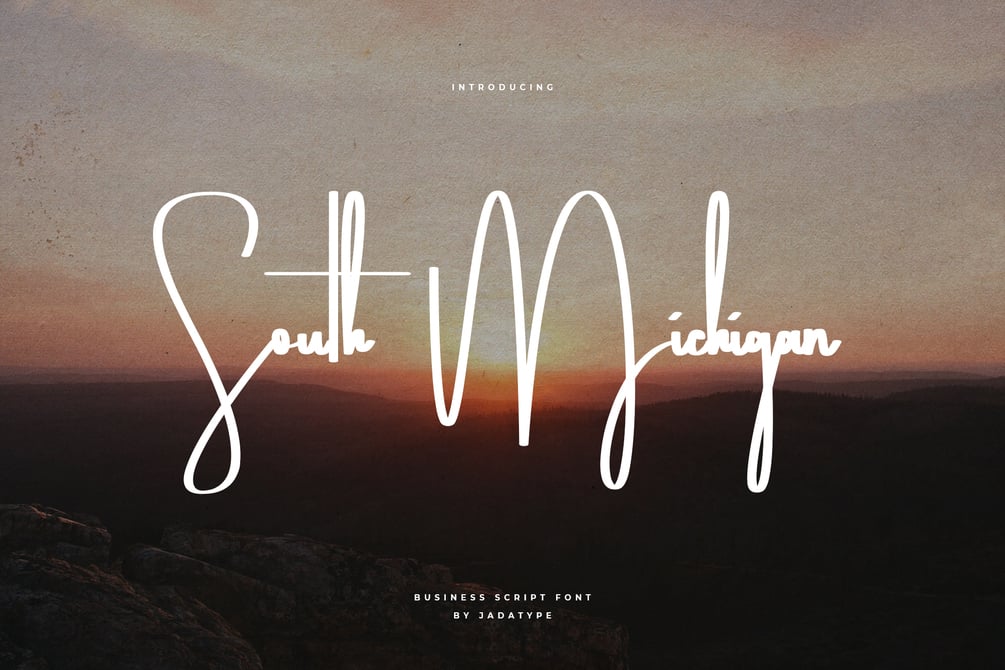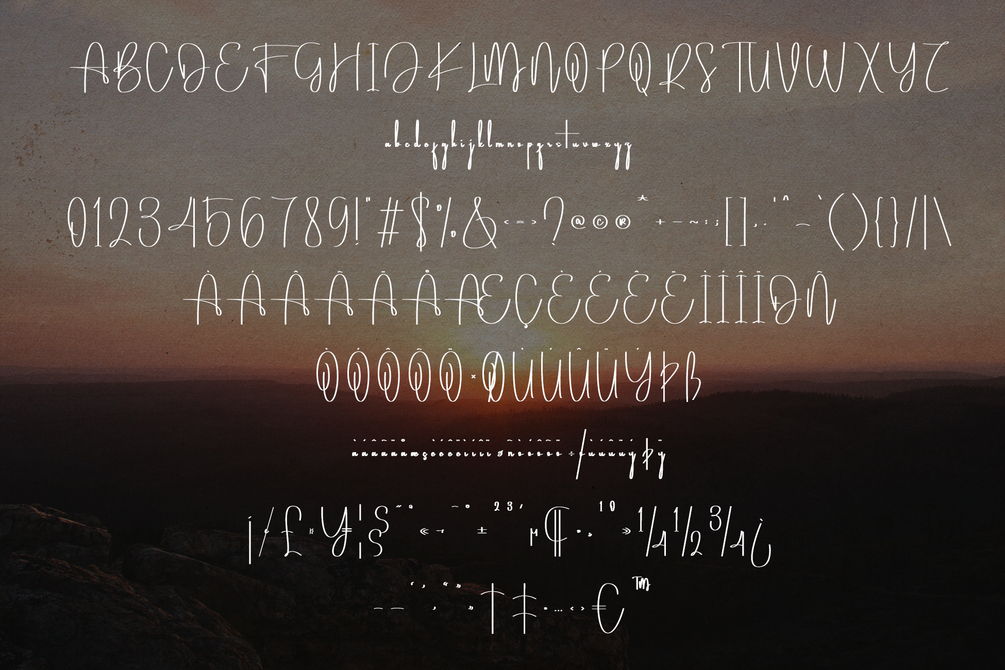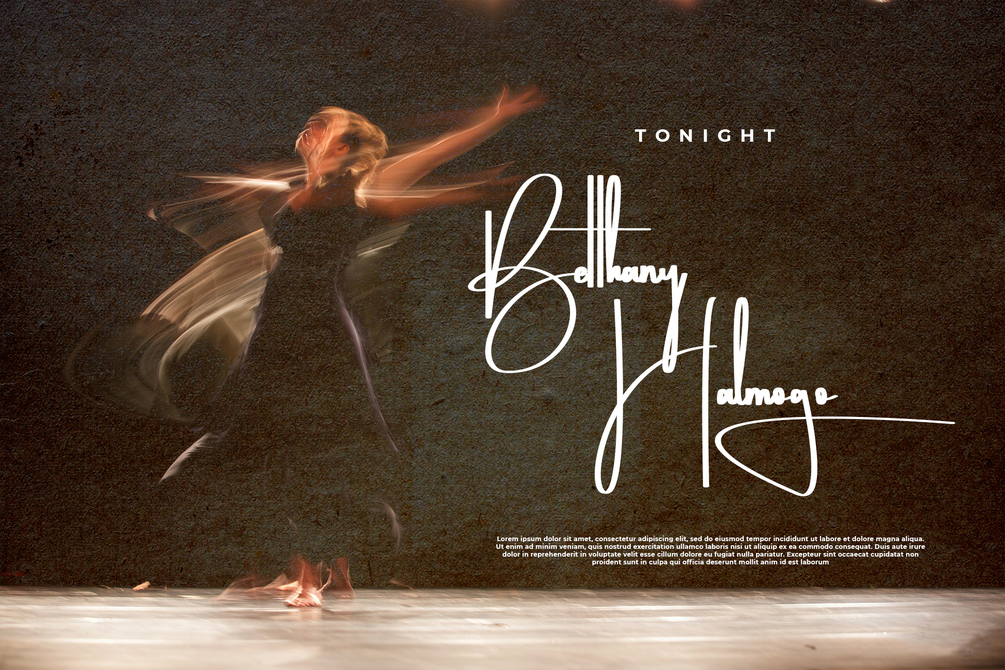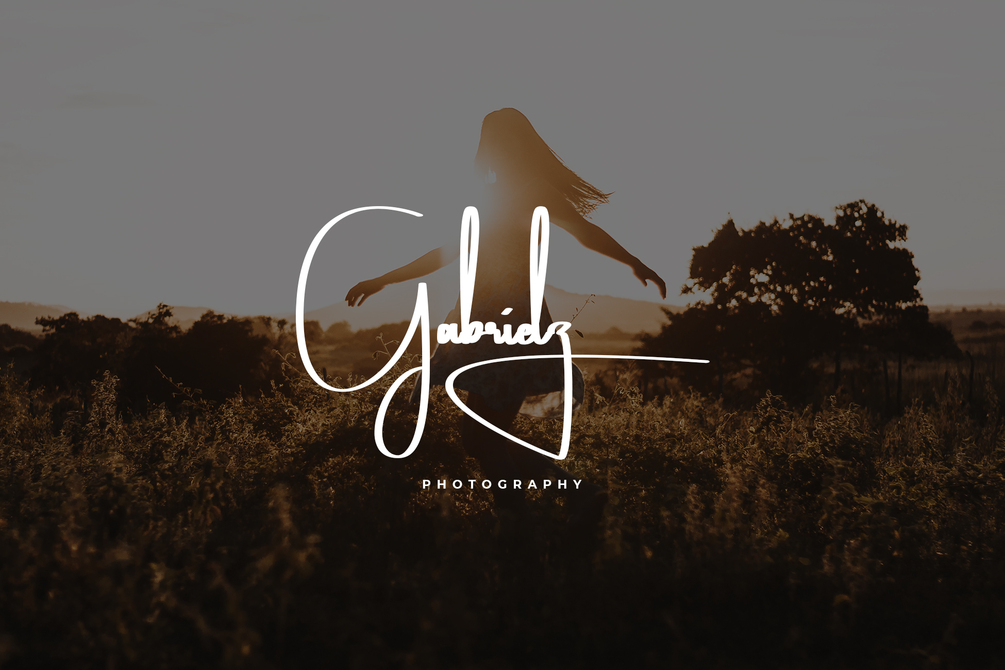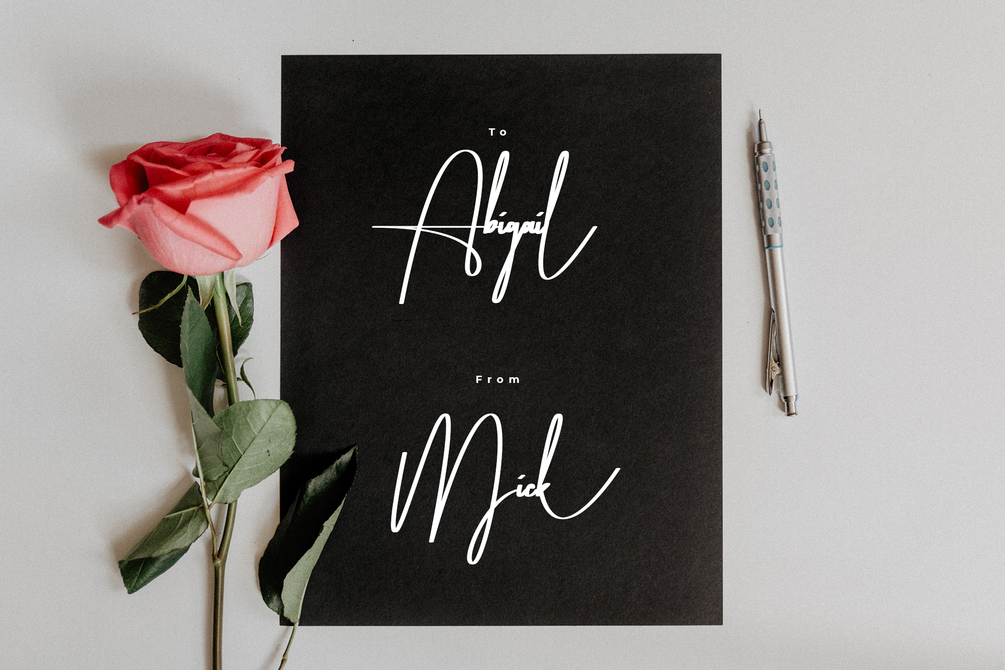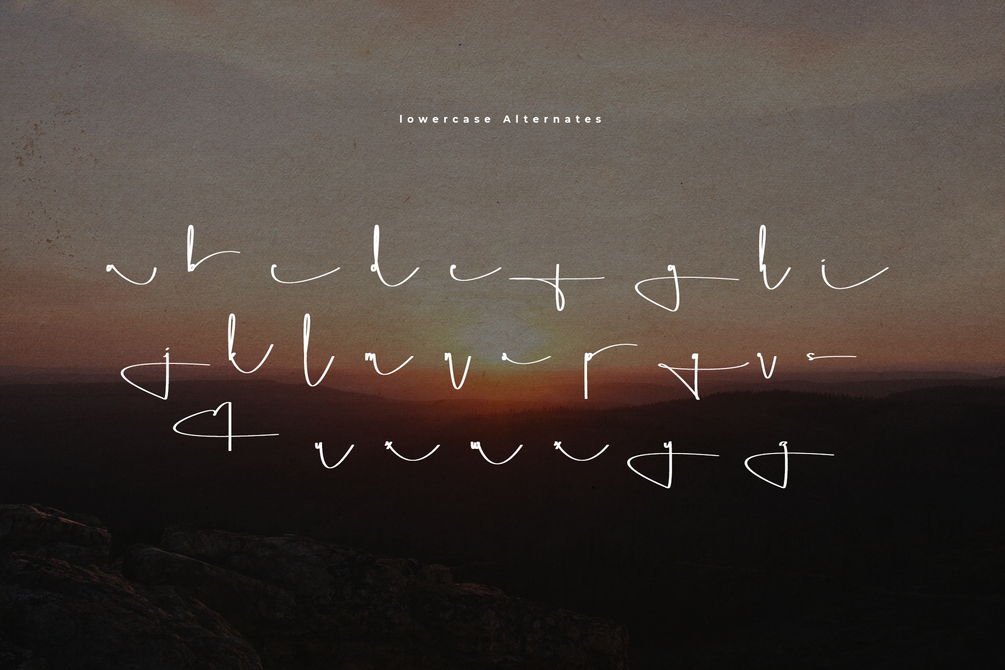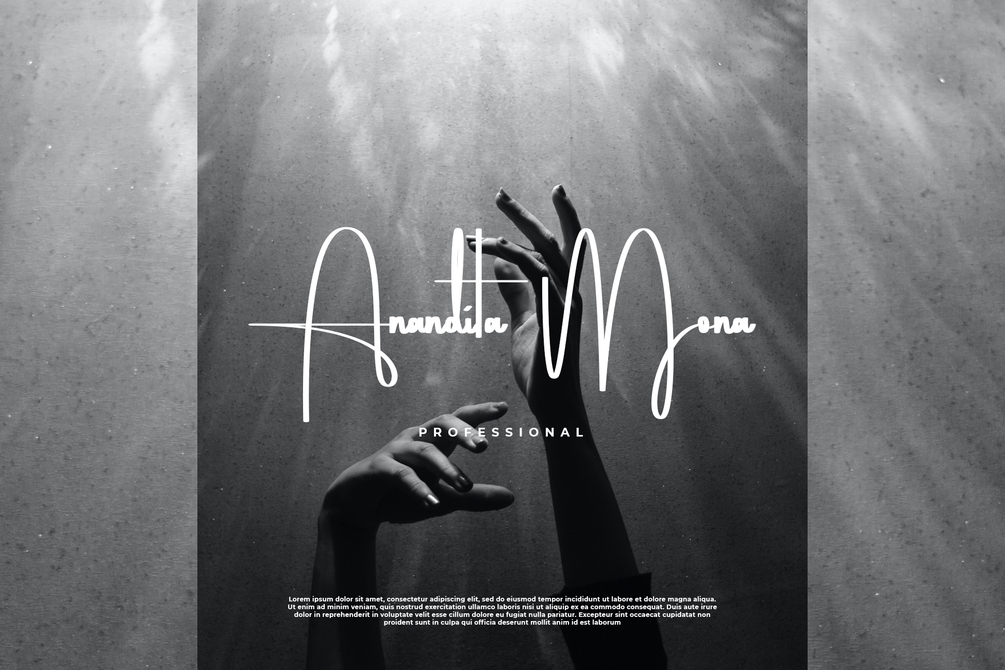
South Michigan Font
South Michigan is script font that comes with business and firm vibe. suitable for business card, logotype, branding, poster, and so on. contains standard English letters, numbers, punctuation, alternates, and several accents that support multilingualism.